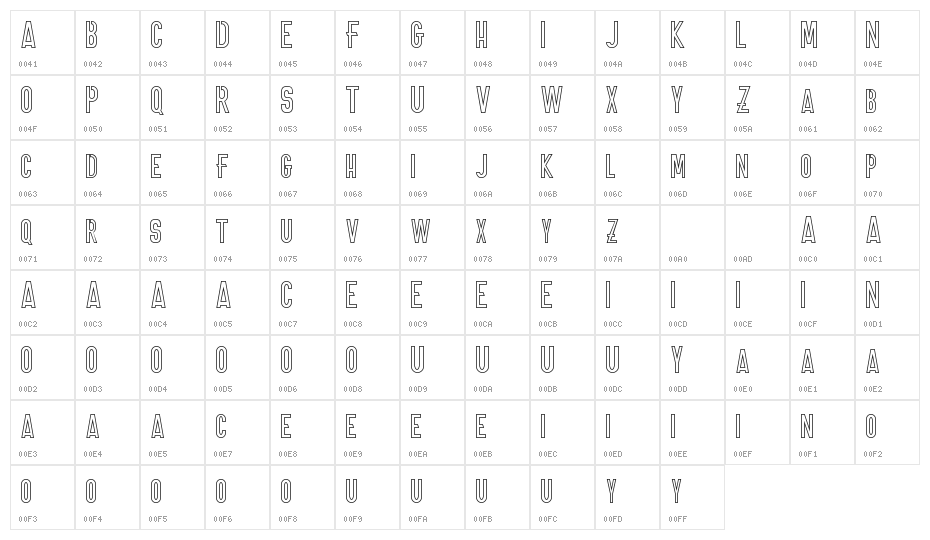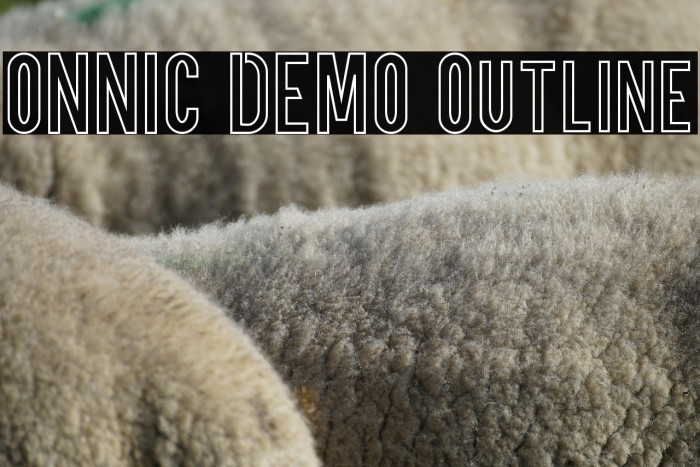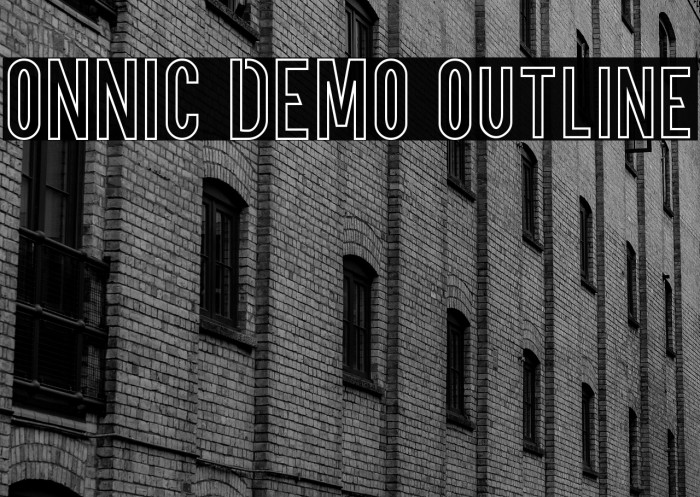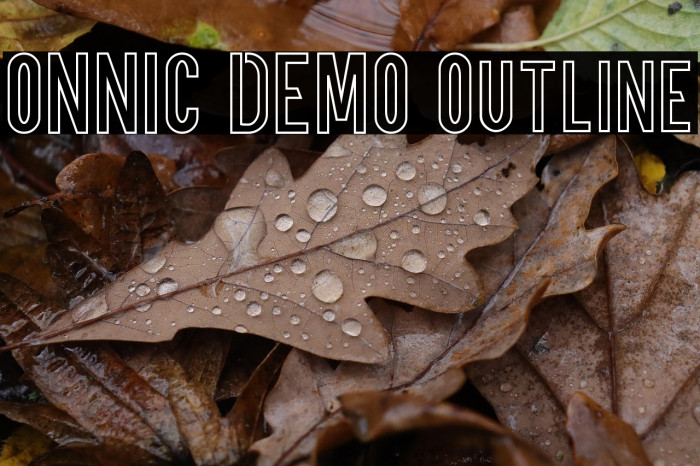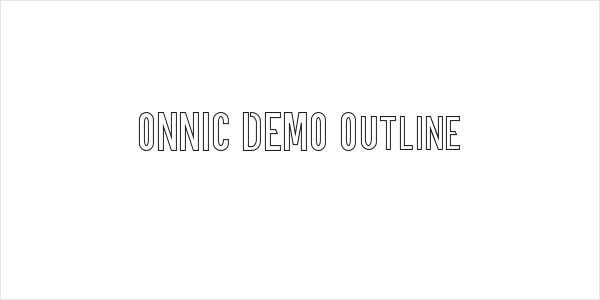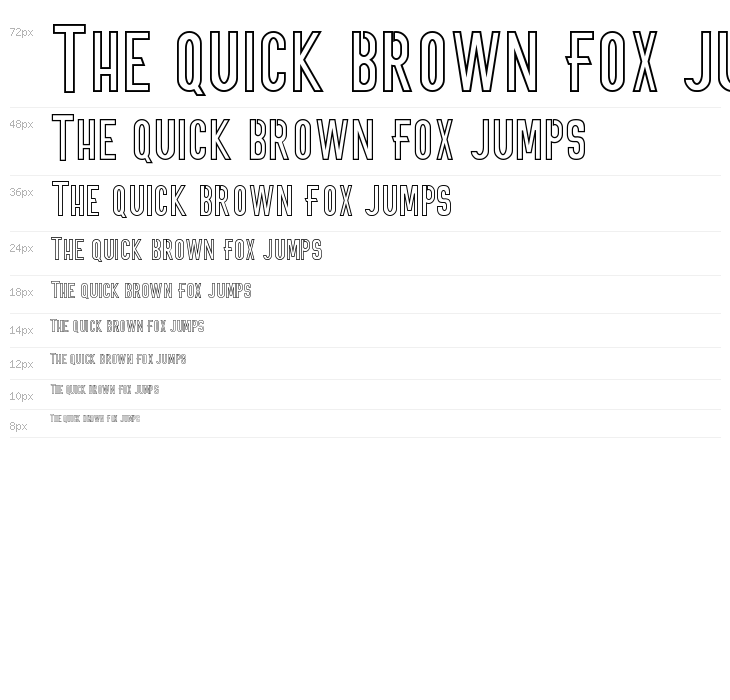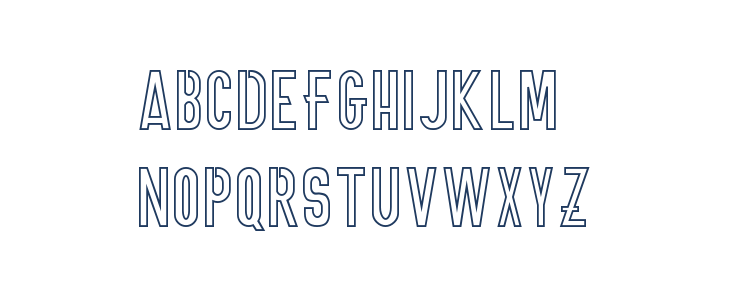
ONNIC DEMO Outline Font
ONNIC DEMO Outline Description
This font features a bold, geometric sans-serif style with a distinct outline effect. Each character is crafted with clean, straight lines and sharp angles, giving it a modern and structured appearance. The uniform stroke width across all characters enhances its clarity and readability, making it suitable for various design applications. The outline style adds a unique dimension, allowing for creative layering and color play in design projects. Its uppercase-only format emphasizes its bold and impactful nature, ideal for making strong visual statements.
| Proposed Projects | Ideal for posters, headlines, logos, and branding materials where a modern and impactful look is desired. |